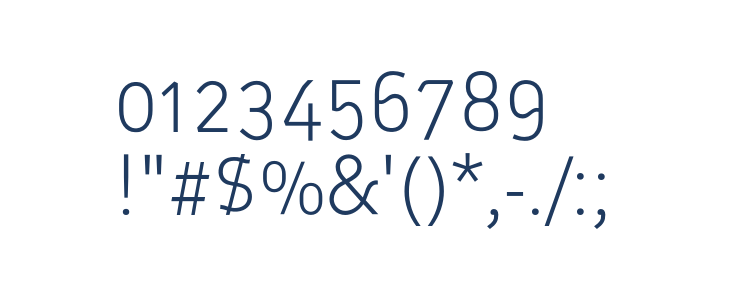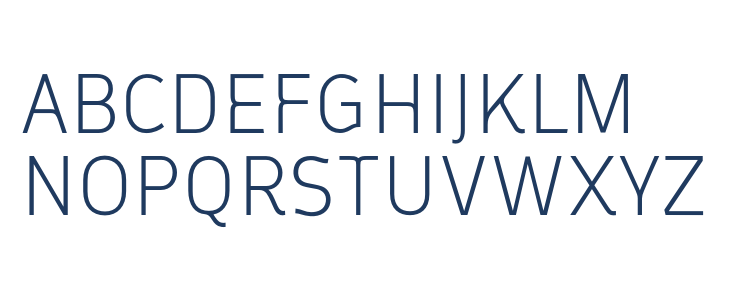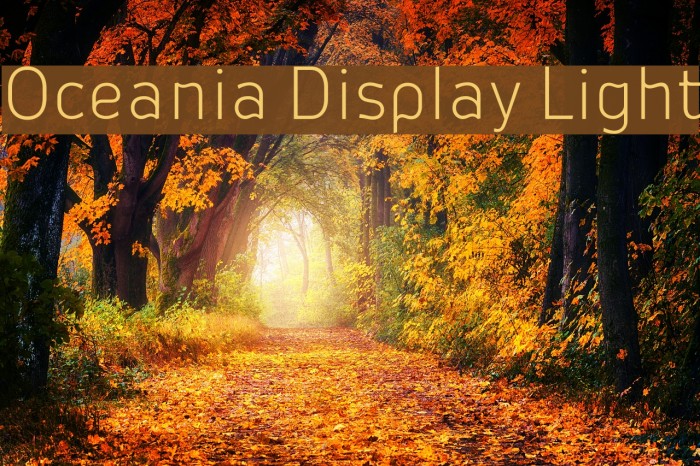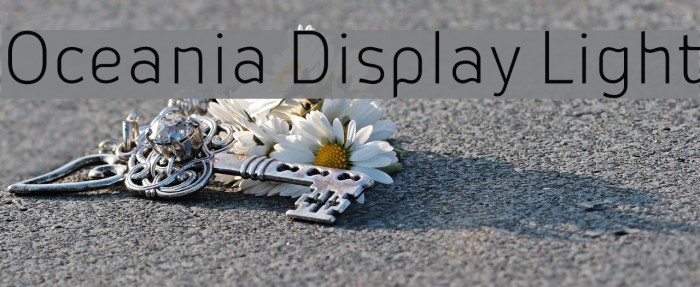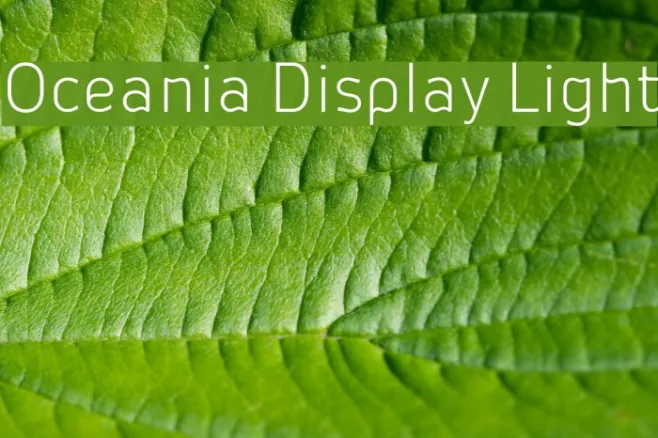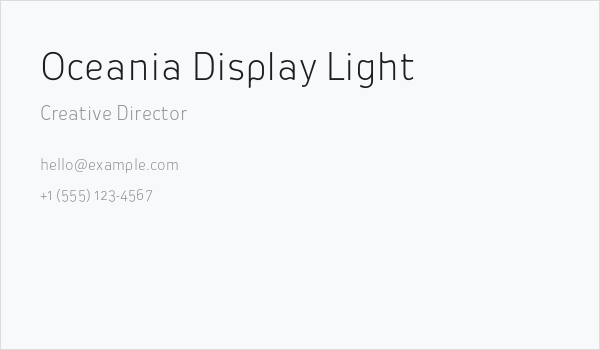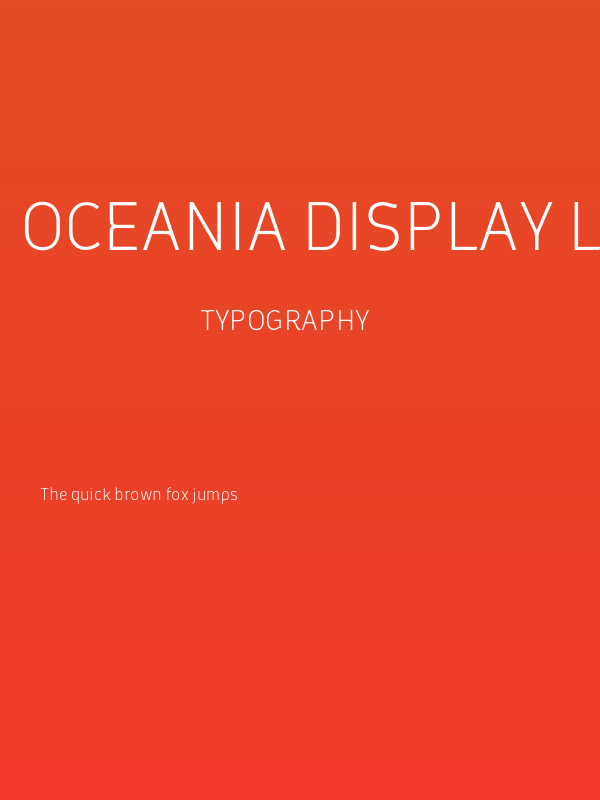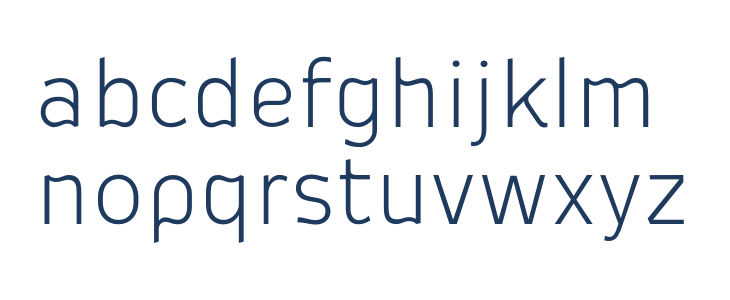
Oceania Display Light Font
Oceania Display Light Description
This font features a clean and modern sans-serif design with a light weight, making it ideal for contemporary projects. The characters are well-proportioned with a consistent stroke width, contributing to its sleek and minimalist appearance. The uppercase and lowercase letters maintain a uniform style, while the numerals and special characters are crafted to complement the overall aesthetic. The font's simplicity and clarity make it highly legible, suitable for various design applications where readability is key.